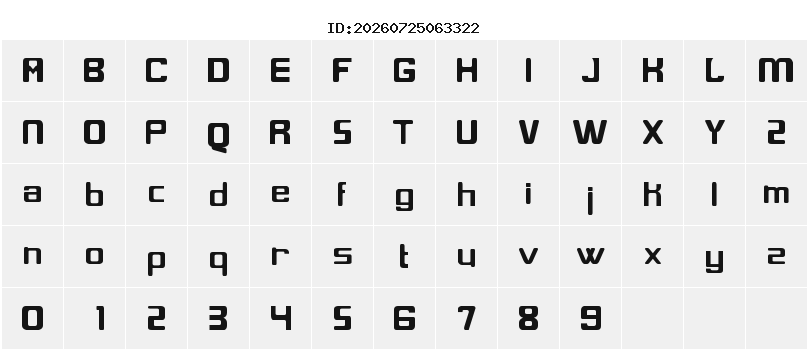
Glix Preview
• Font Name: Glix
• Font ID: Glix:Version 1.00
• Full Font Name: Glix
• Version: Version 1.00 October 24, 2011, initial release
• PostScript Name: Glix
• Designer: Matias Romero
About Glix.ttf
Glix.ttf is a modern, elegant sans-serif font designed for ultimate readability and visual harmony. Perfect for branding, headlines, web design, and print materials.